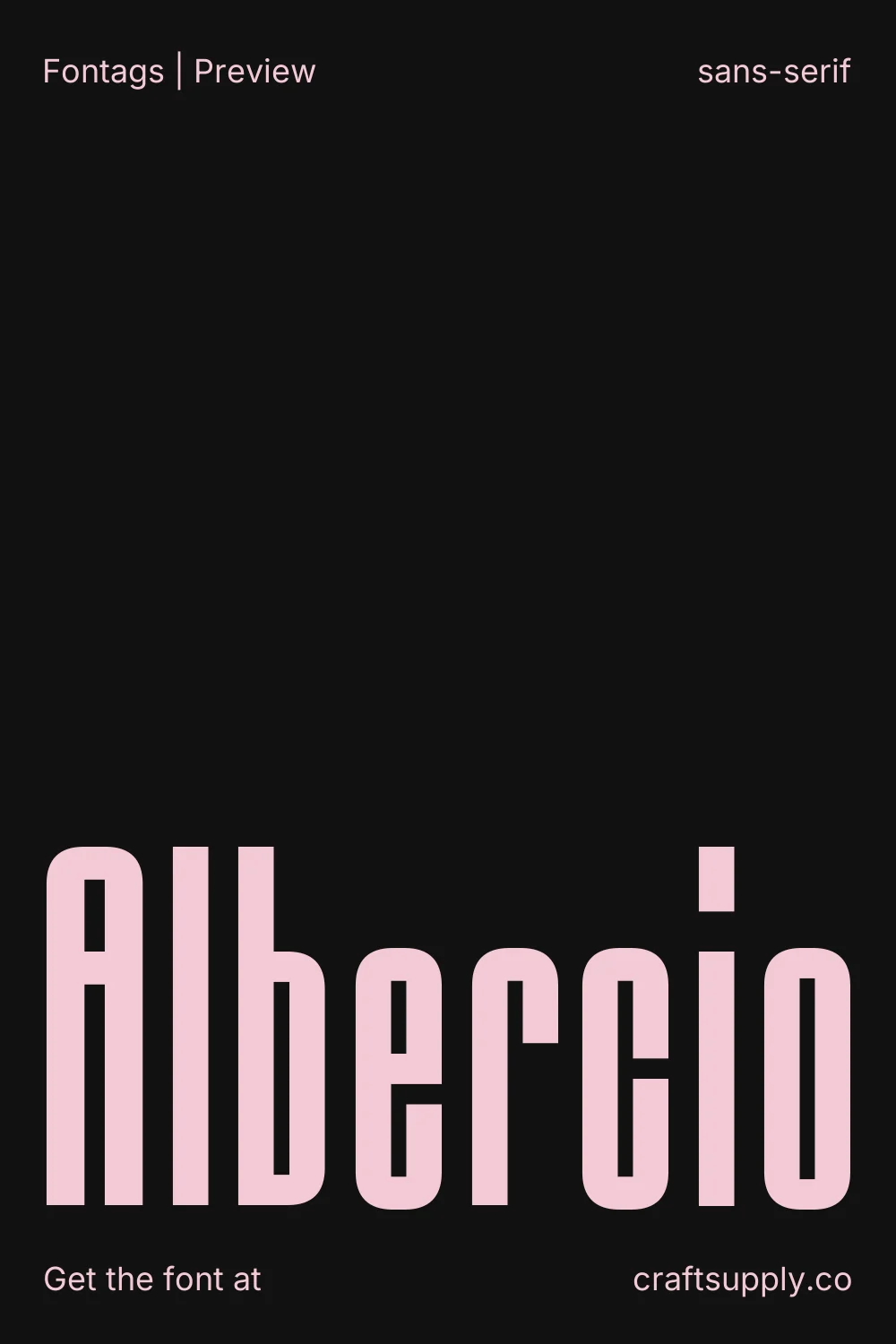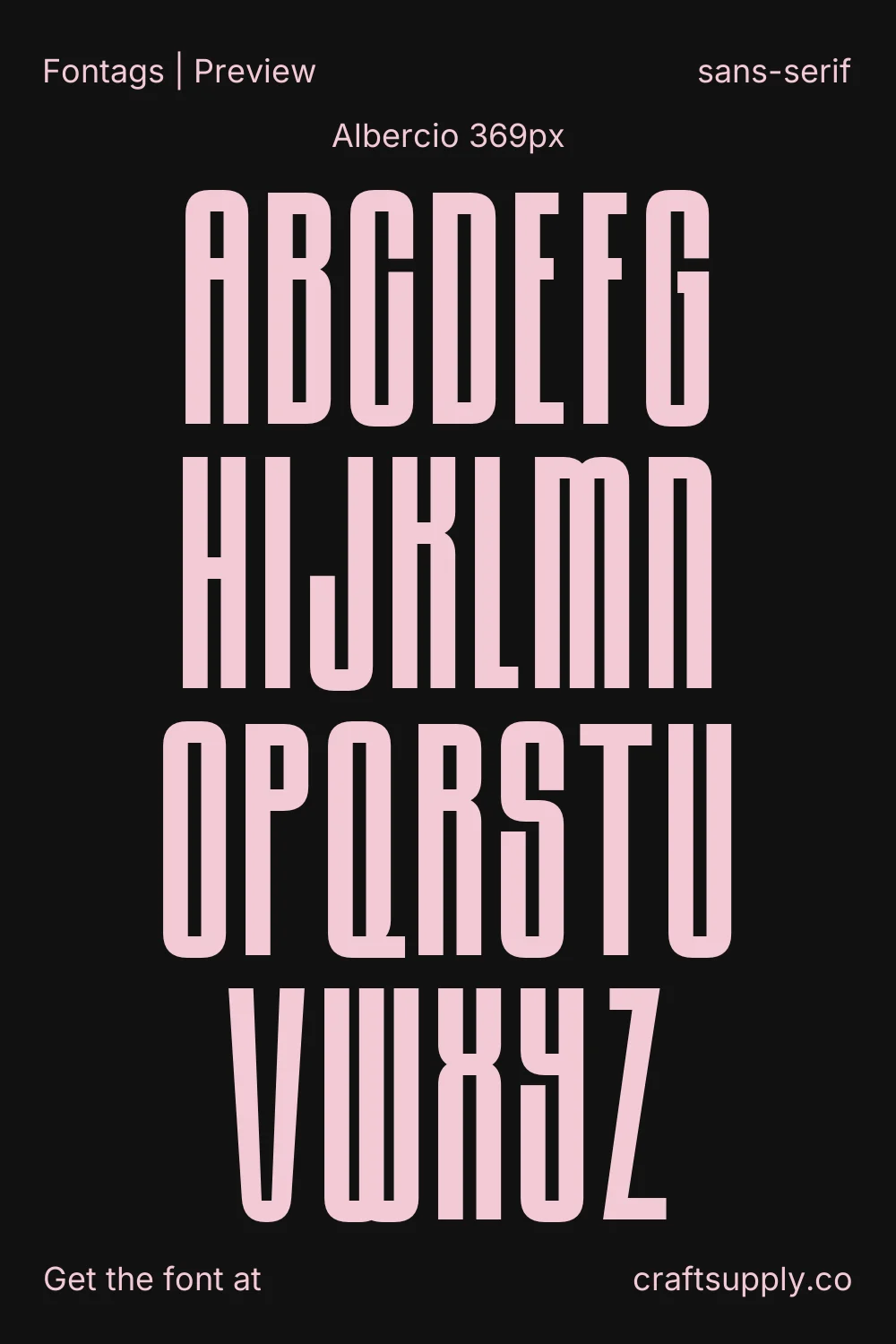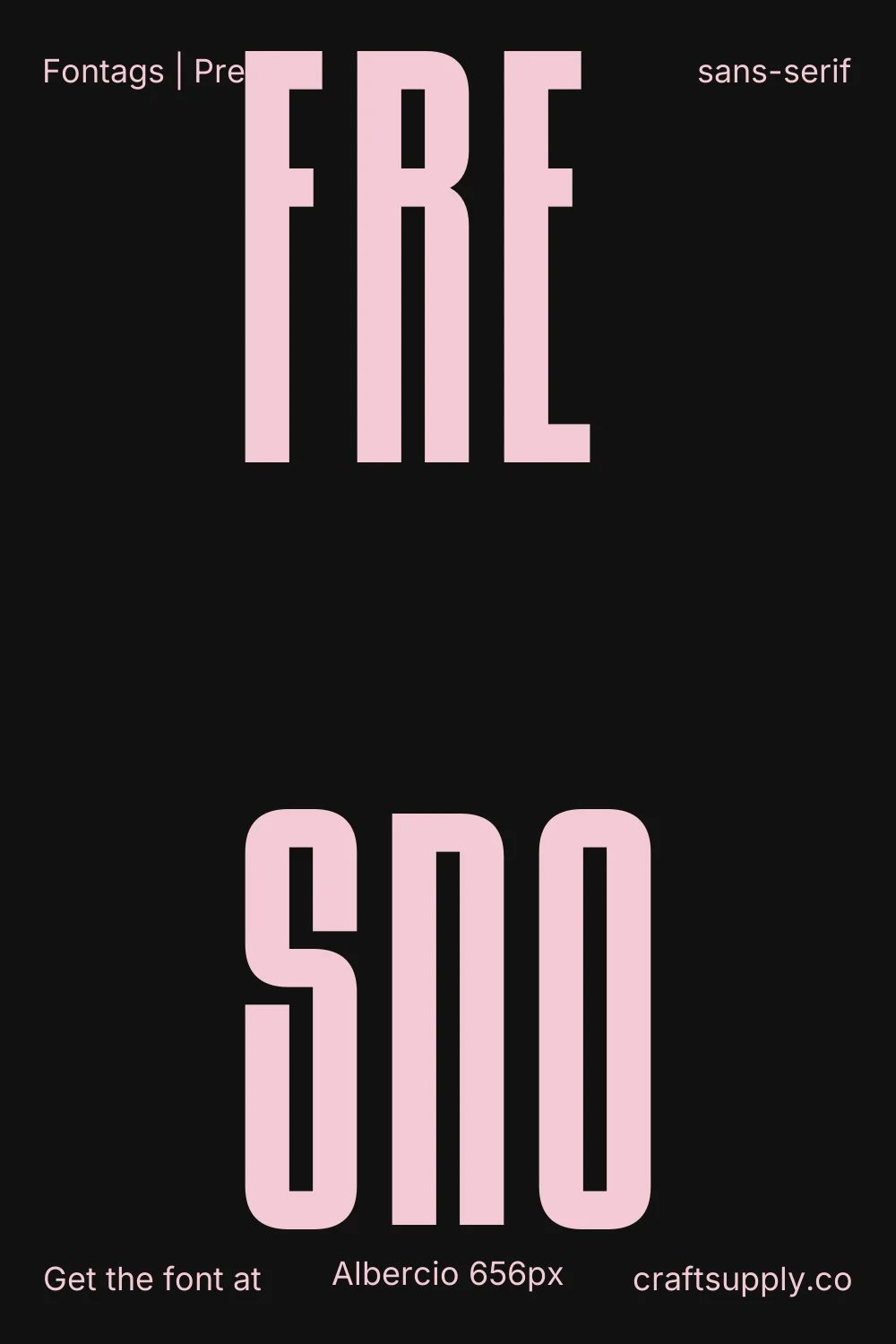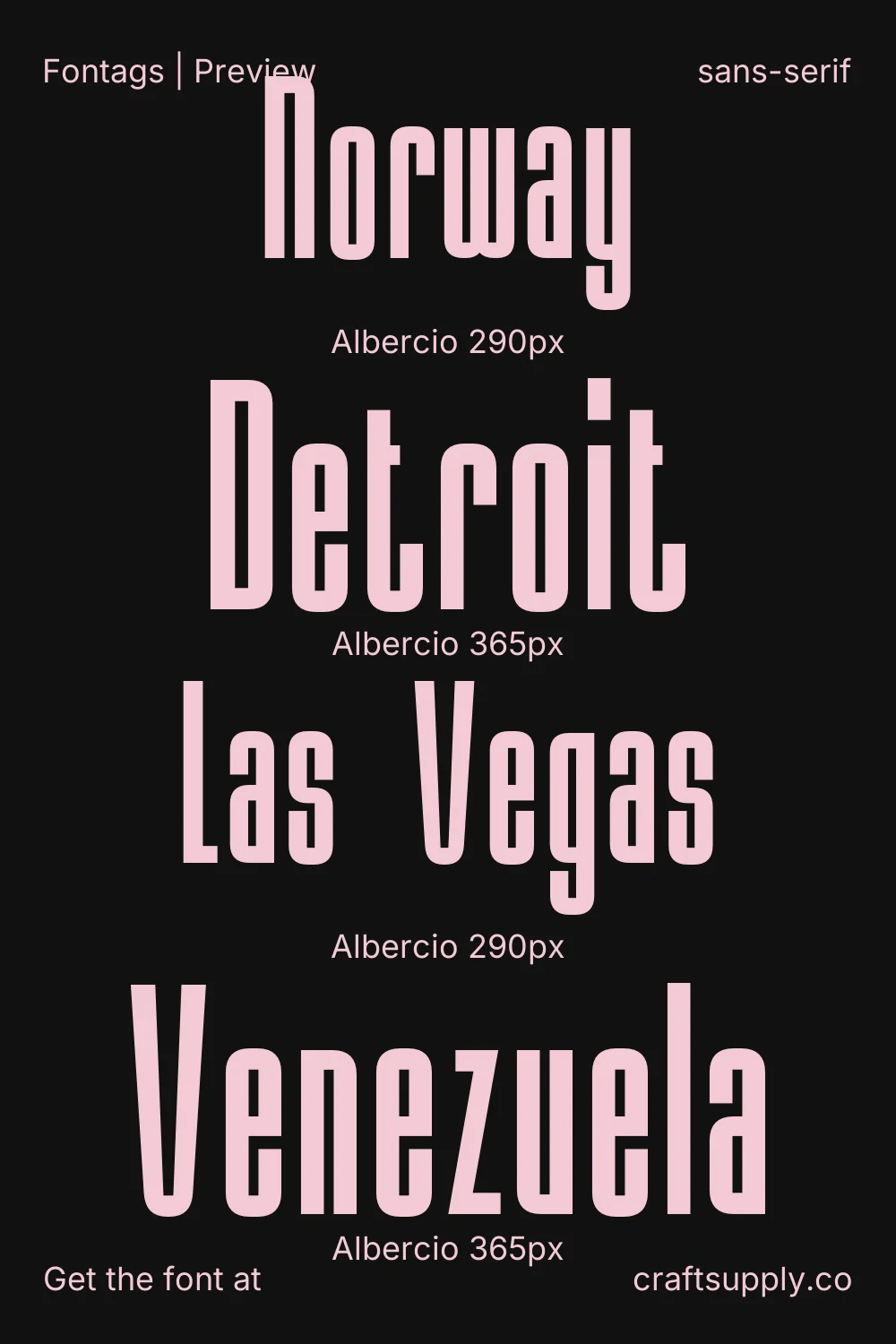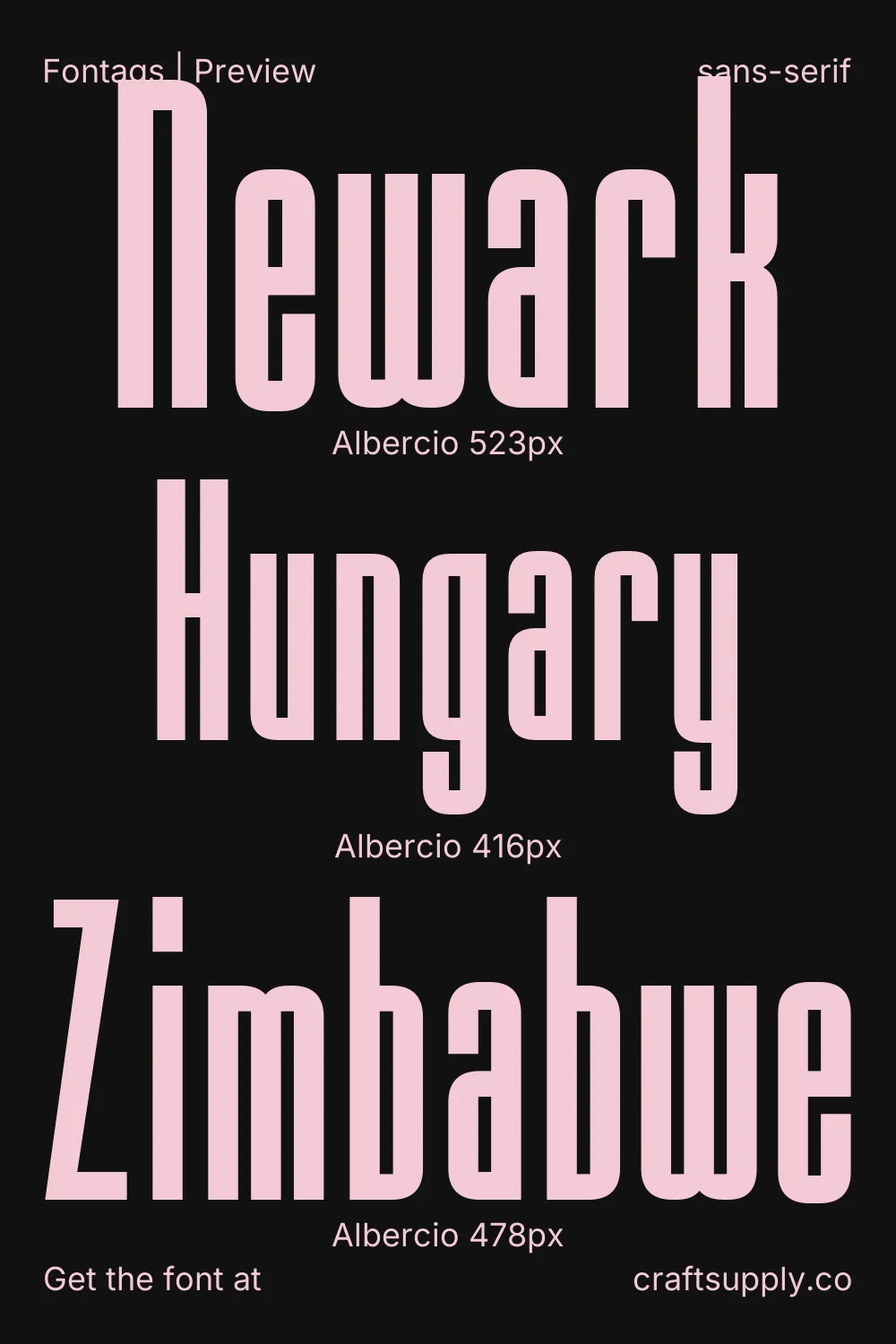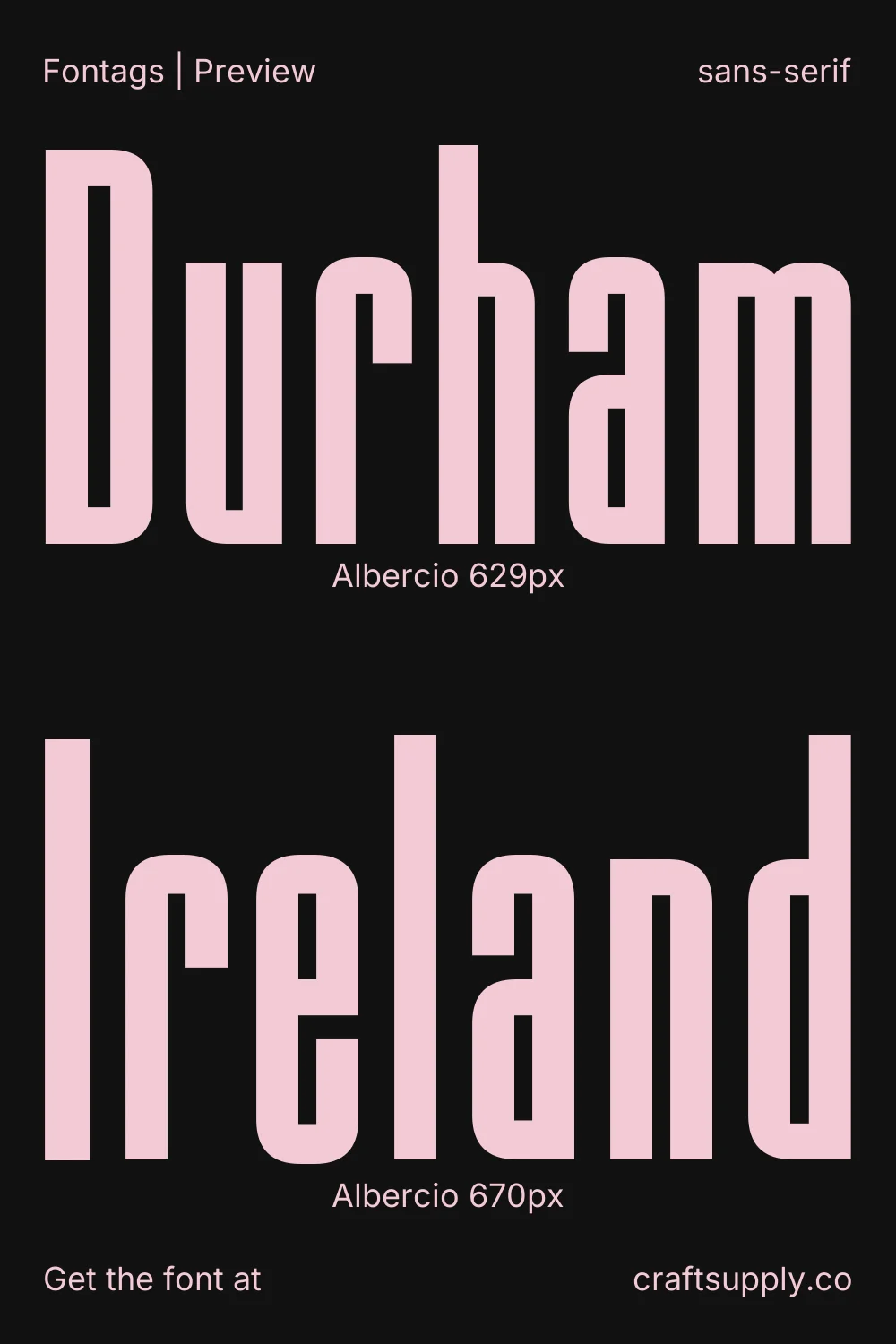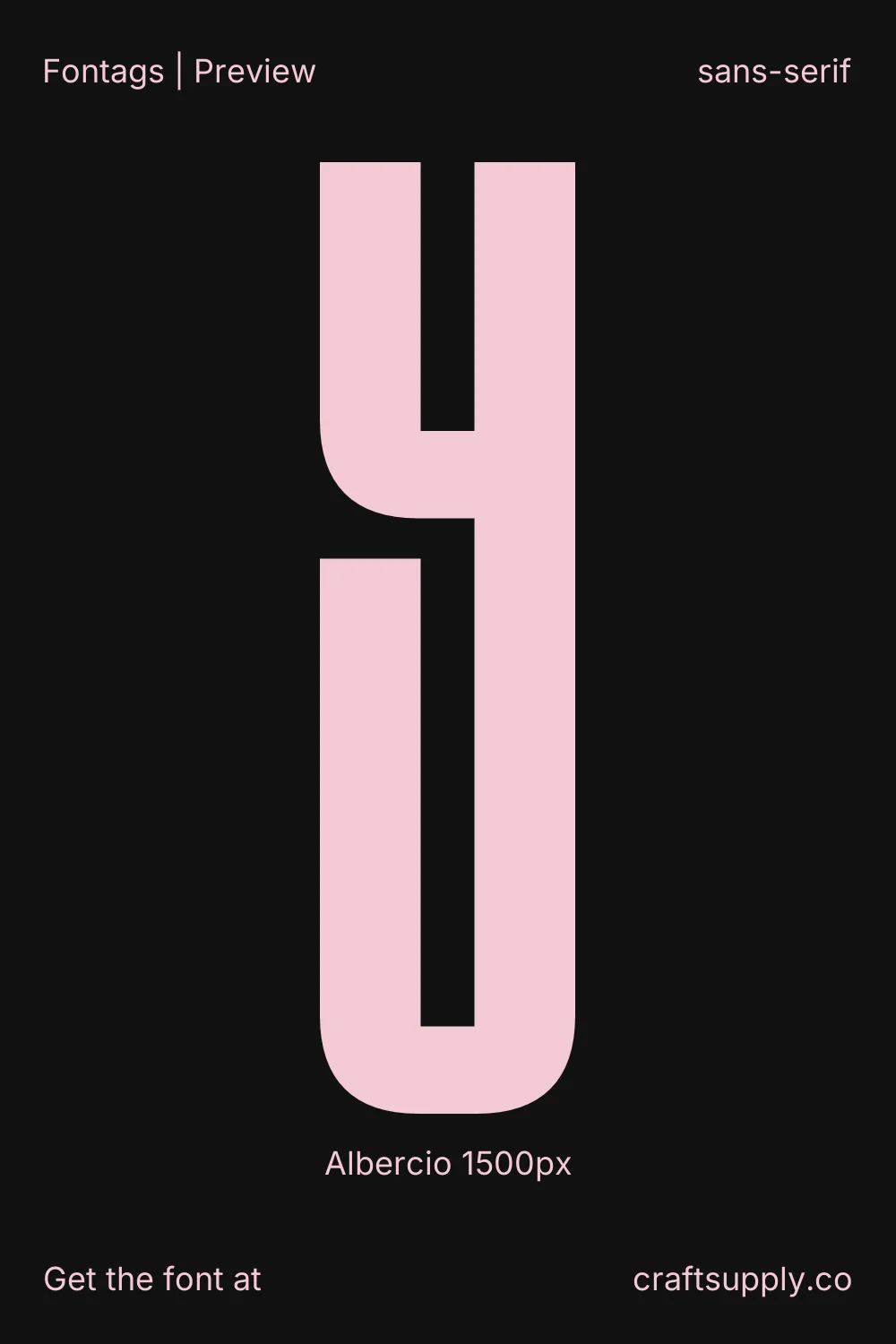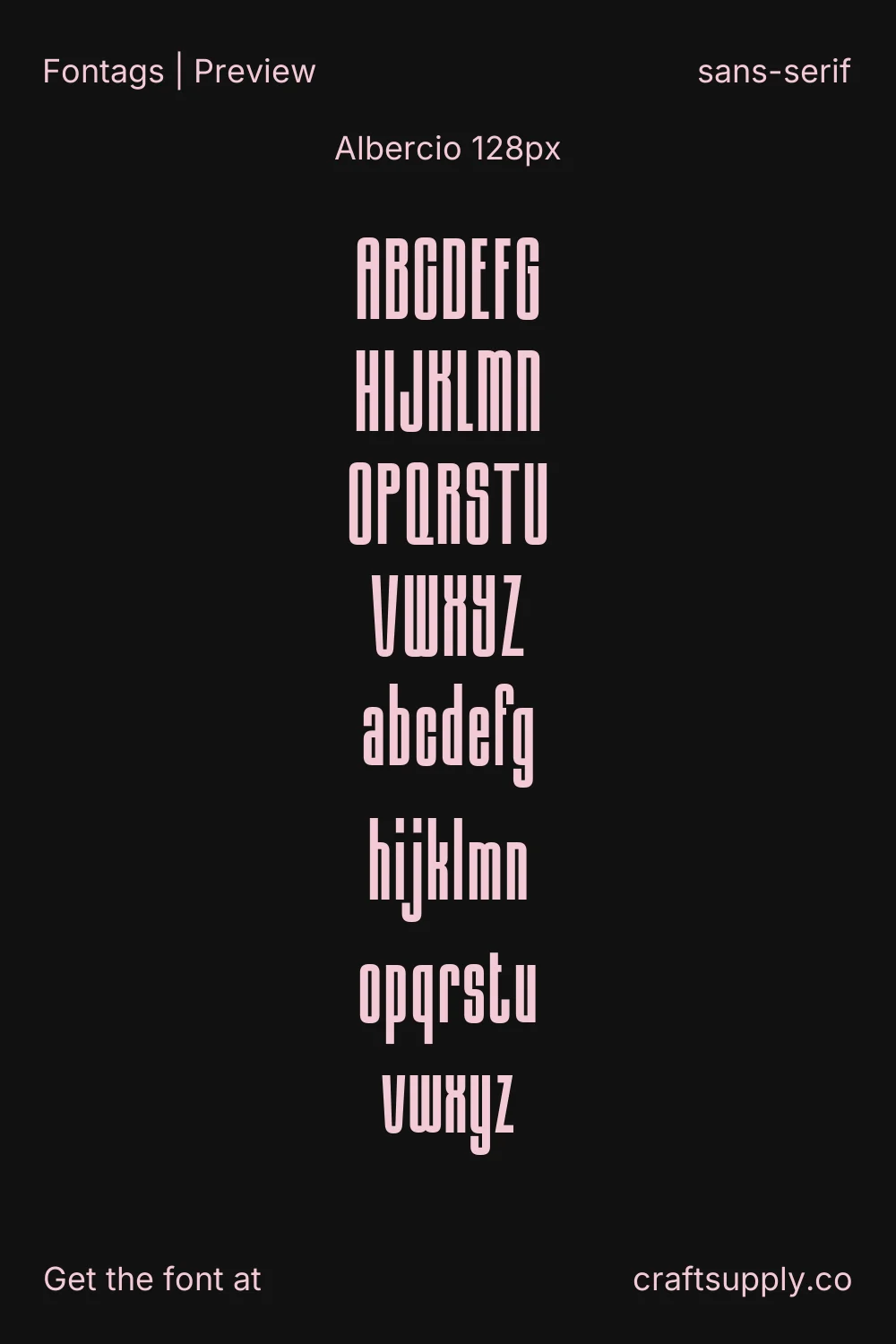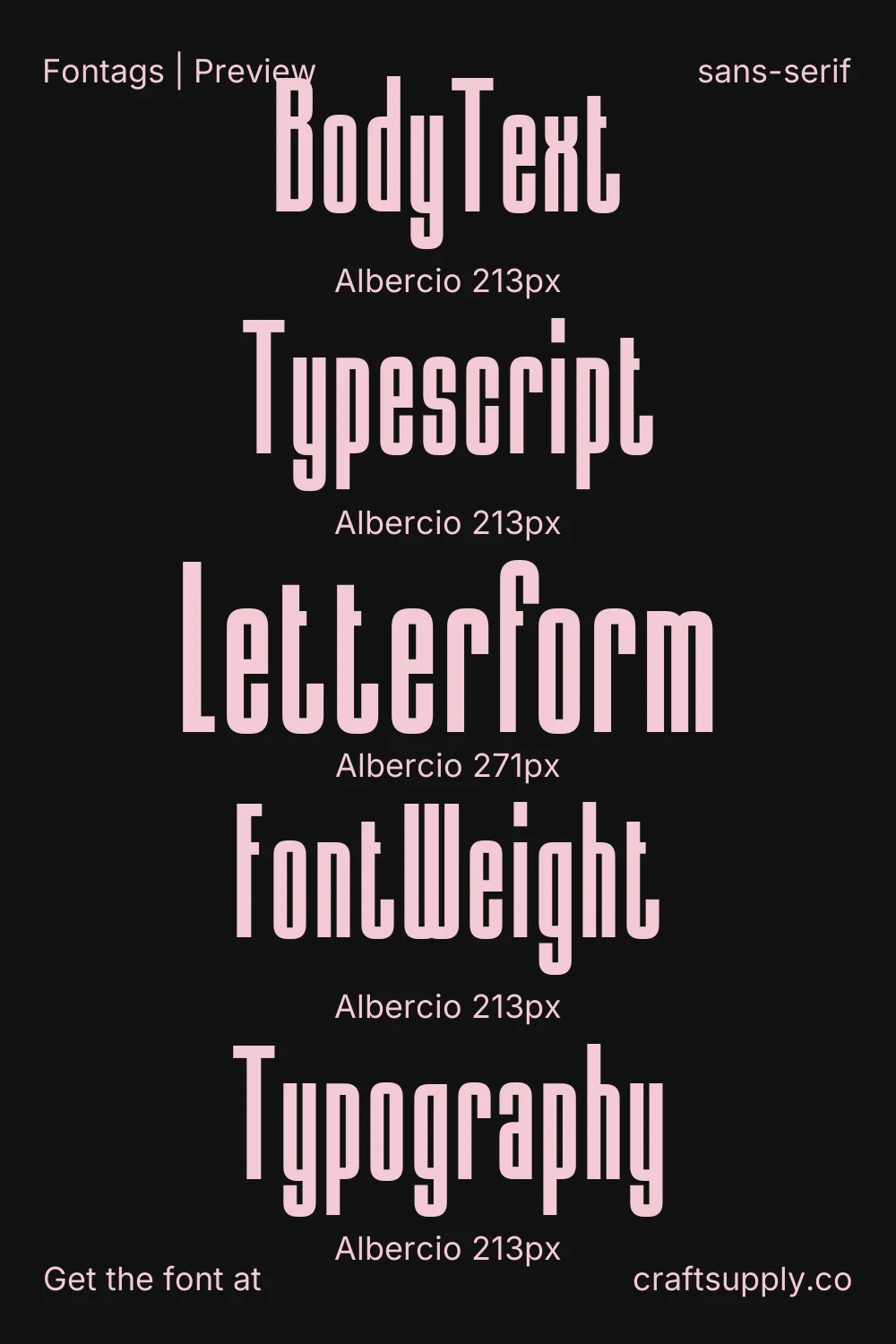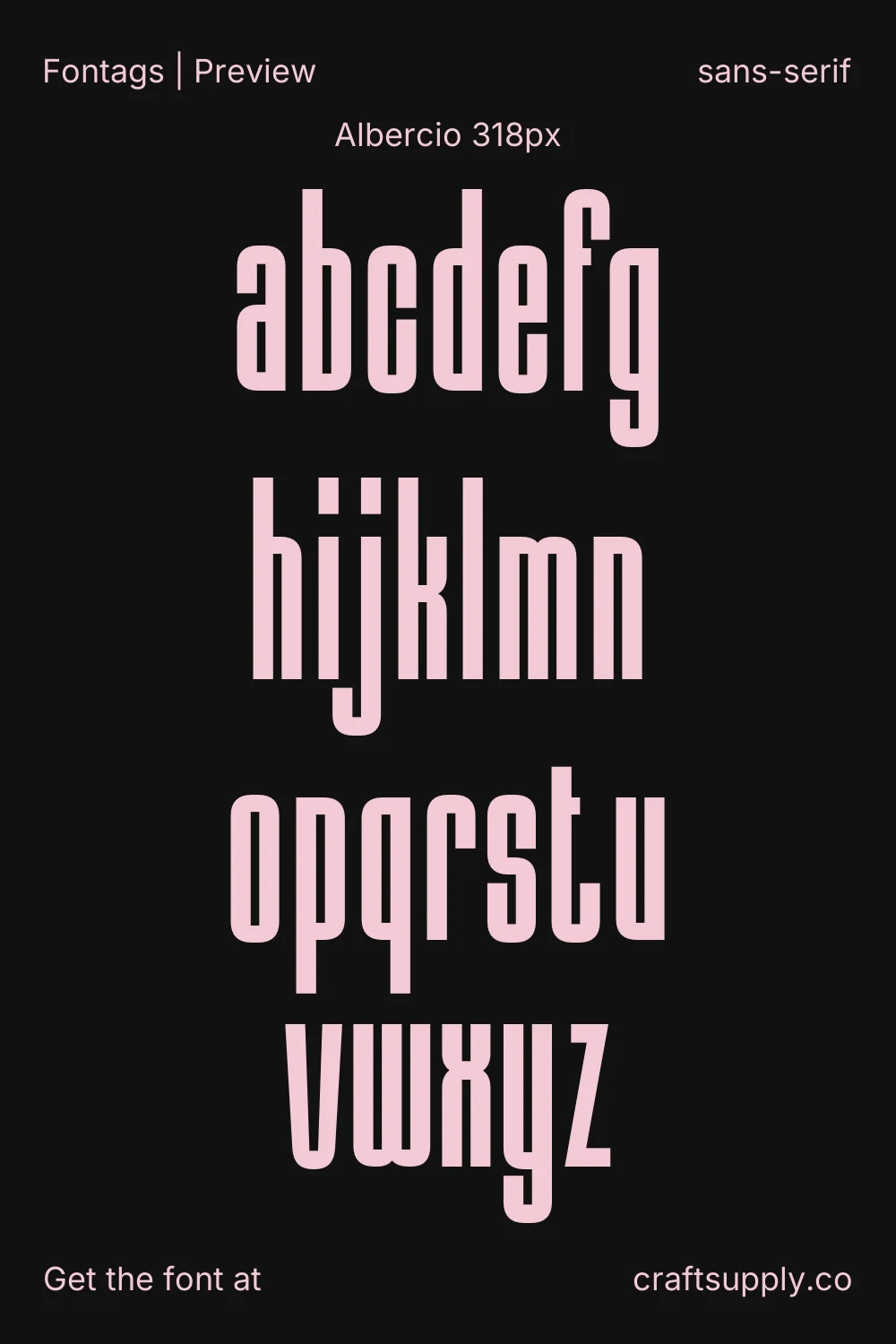
Albercio
Albercio is a captivating condensed sans serif display font that merges striking compactness with effortless elegance. Its narrow, balanced forms are designed for maximum impact in headlines, posters, and editorial layouts, making every project memorable and sophisticated.